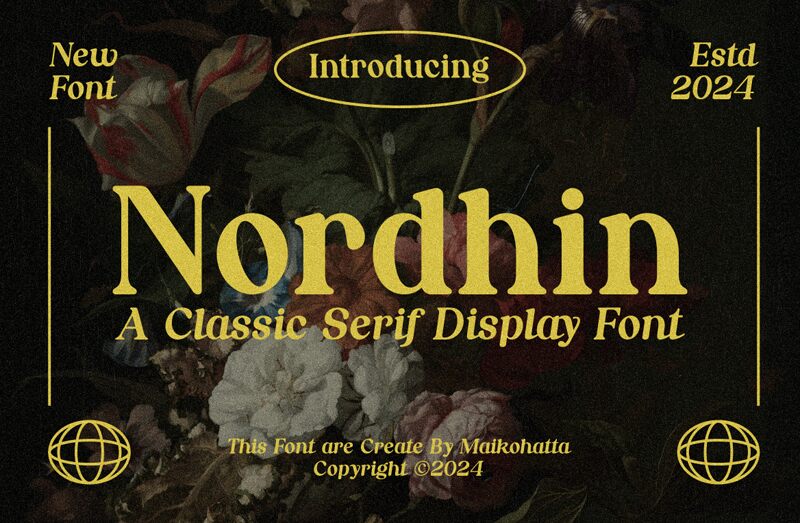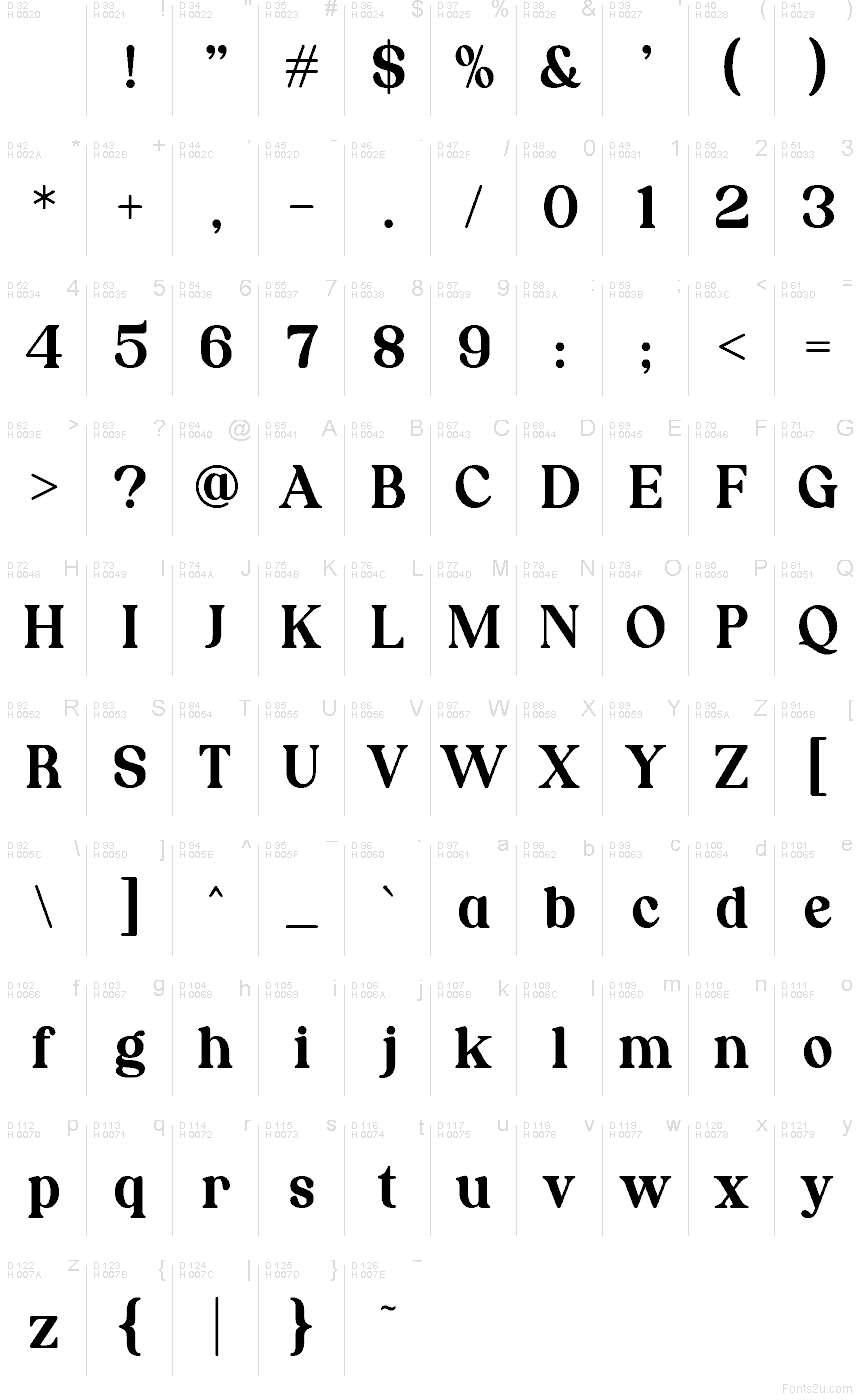
Nordhin
Nordhin font by Gilang Ternadho of Maikohatta is a free serif typeface with a bold, inky presence and chunky, sculpted curves. Its wide, almost blocky letterforms sit on stout serifs, giving each word a sense of weight and old-world authority, while the soft, rounded joins keep it from feeling stiff. The rhythm of the strokes feels carved rather than drawn, like lettering you’d spot on vintage book covers or stone plaques.
Using Nordhin, headlines immediately gain a dark, tactile richness that pulls the eye in. This free font works beautifully for book covers, posters, logos, editorial titles, packaging, and café or boutique branding that needs a strong, crafted feel. Pair Nordhin with a clean geometric sans serif at smaller sizes to keep layouts readable while letting its heavy, characterful forms command the spotlight.